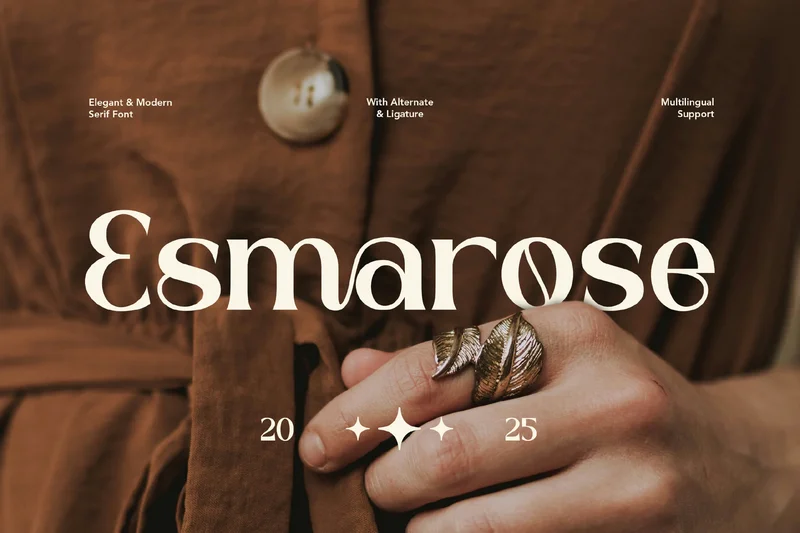
Elegant Serif Esmarose Font
Esmarose is a classic-meets-modern serif typeface designed to bring sophistication and authority to your creative projects. With perfectly balanced letterforms, refined contrast, and timeless aesthetics, Esmarose is the ideal choice for branding, editorial layouts, luxury packaging, and presentation slides that need a high-end, professional edge.
Crafted with precision, Esmarose delivers exceptional legibility in both print and digital formats — from headline titles in a corporate deck to body text in a fashion catalog. Its versatile style adapts seamlessly to logos, magazine spreads, invitations, and product labels, ensuring your designs always stand out with understated elegance.
Alternates & Ligatures
Perfect For:
Logos, brand identity, editorial design, fashion lookbooks, luxury packaging, magazine covers, wedding invitations, corporate presentations, product labels, web banners, and social media visuals.